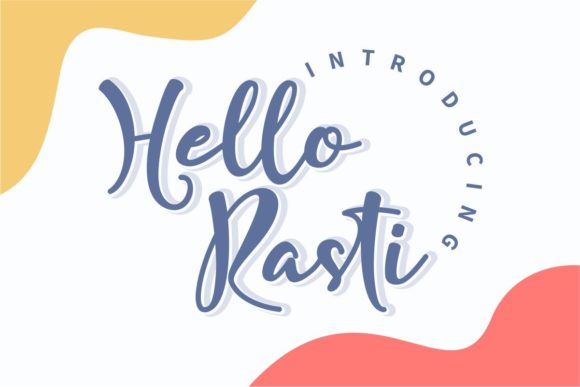
Welcome to the world of Hello Rasti, a captivating script font that dances gracefully upon the page like a playful brushstroke. Step into a realm of timeless elegance and visual delight, where words are transformed into captivating works of art.
Hello Rasti is the epitome of charm and whimsy, a font that captures the essence of heartfelt moments and transforms them into tangible expressions of love and joy. Its hand-painted textures evoke a sense of intimacy and warmth, making it the perfect choice for those seeking a font that speaks to the heart.
With Hello Rasti, you hold the key to unlocking a treasure trove of creative possibilities. Whether you are designing wedding invitations that whisper of romance, crafting heartfelt love letters that carry the weight of a thousand emotions, or simply seeking to infuse your designs with a touch of elegance, Hello Rasti is your muse.
This font is a PUA-encoded masterpiece, granting you effortless access to a myriad of glyphs and swashes, allowing you to weave intricate designs with a simple touch of your fingers. Hello Rasti is a font that adapts to your creative vision, bending and flowing to suit your every desire.
Immerse yourself in the beauty of Hello Rasti, and let its whimsical charm guide you to create designs that captivate and inspire. Join the growing community of designers who have discovered the enchanting allure of this font and unlock the true potential of your creative genius.